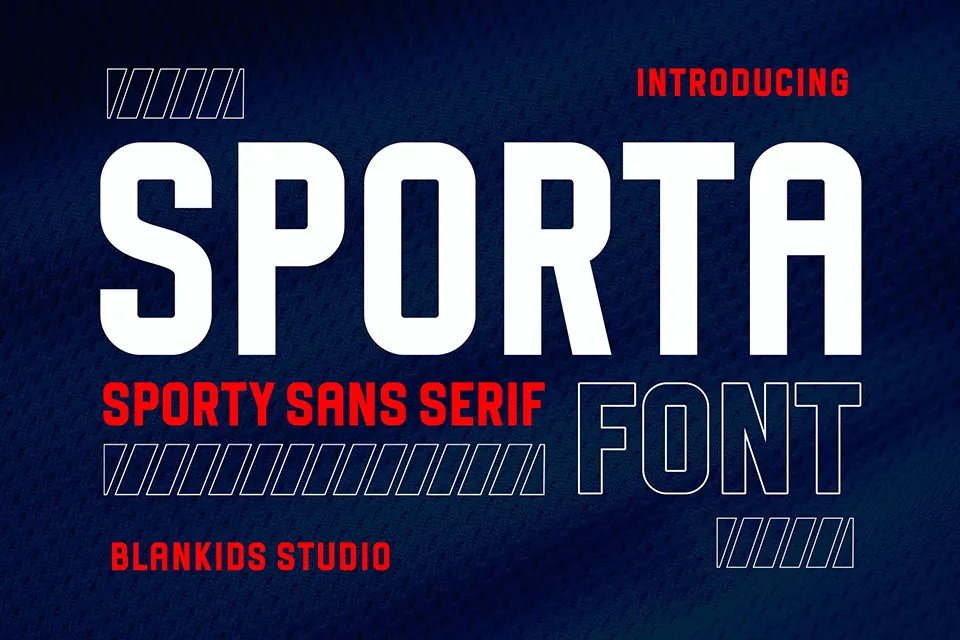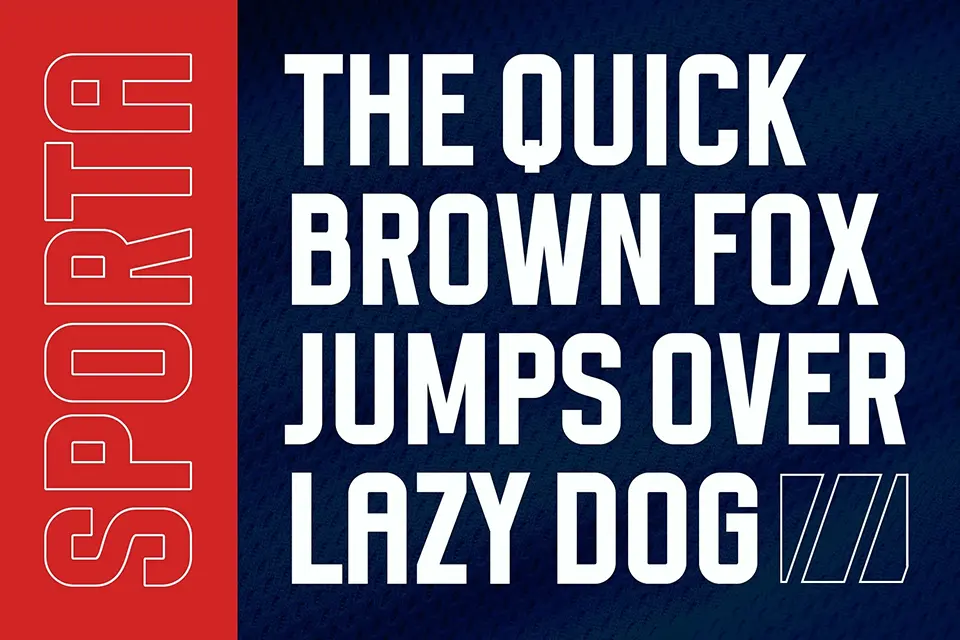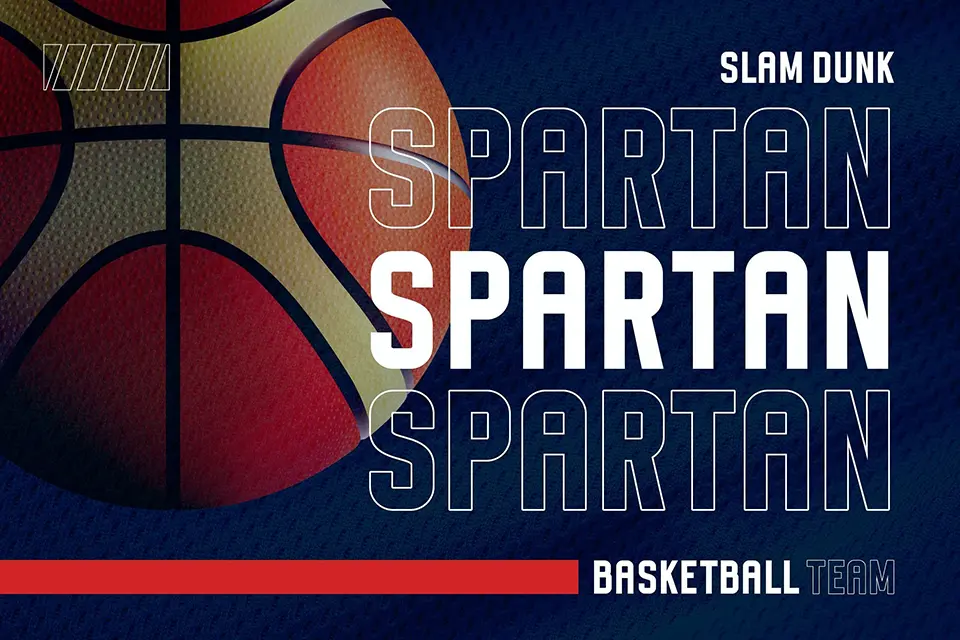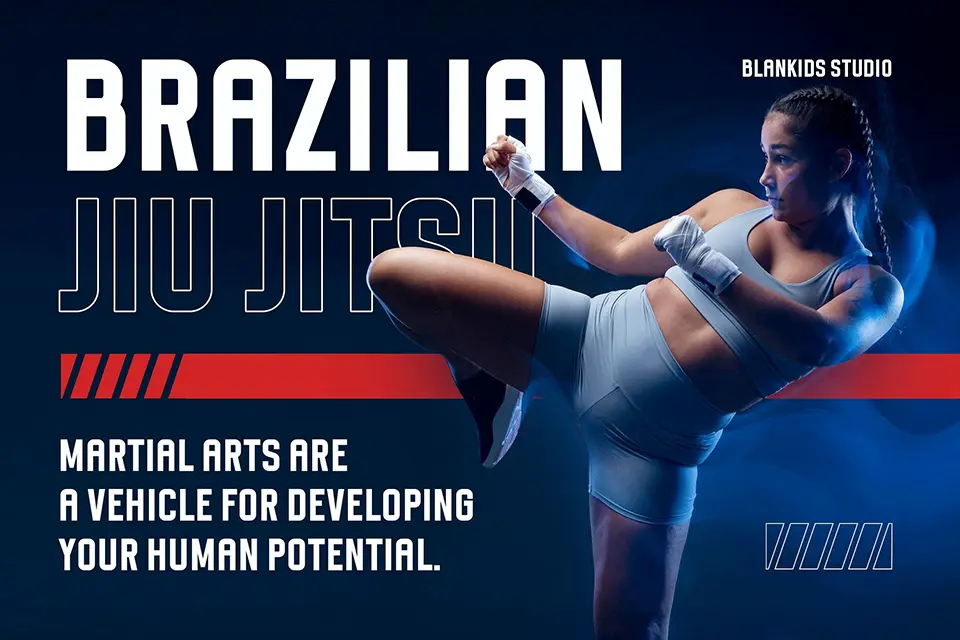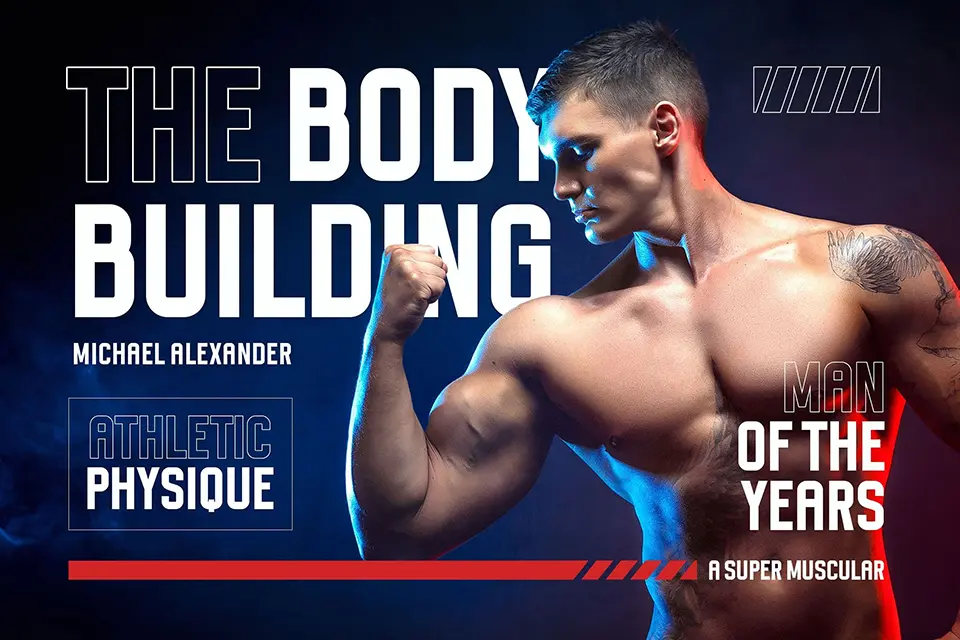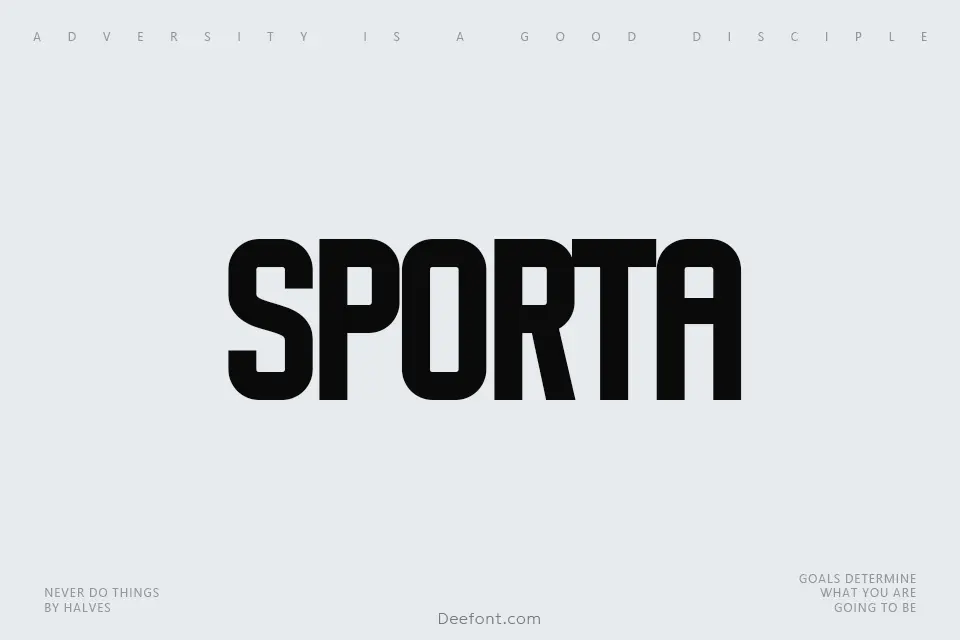
Sporta Font
Sporta Font is a modern all-caps sans serif font designed with a sporty aesthetic. This eye-catching typeface combines bold, dynamic elements with clean lines, making it perfect for athletic branding and contemporary designs. The font’s energetic character and strong visual presence make it particularly suitable for sports-related projects, team logos, and dynamic marketing materials. Available in multiple styles, Sporta offers versatility while maintaining its distinctive sporty essence. Its modern typography approach ensures readability while delivering an impactful visual statement, making it an excellent choice for designers seeking to create attractive and appealing designs with an athletic edge.